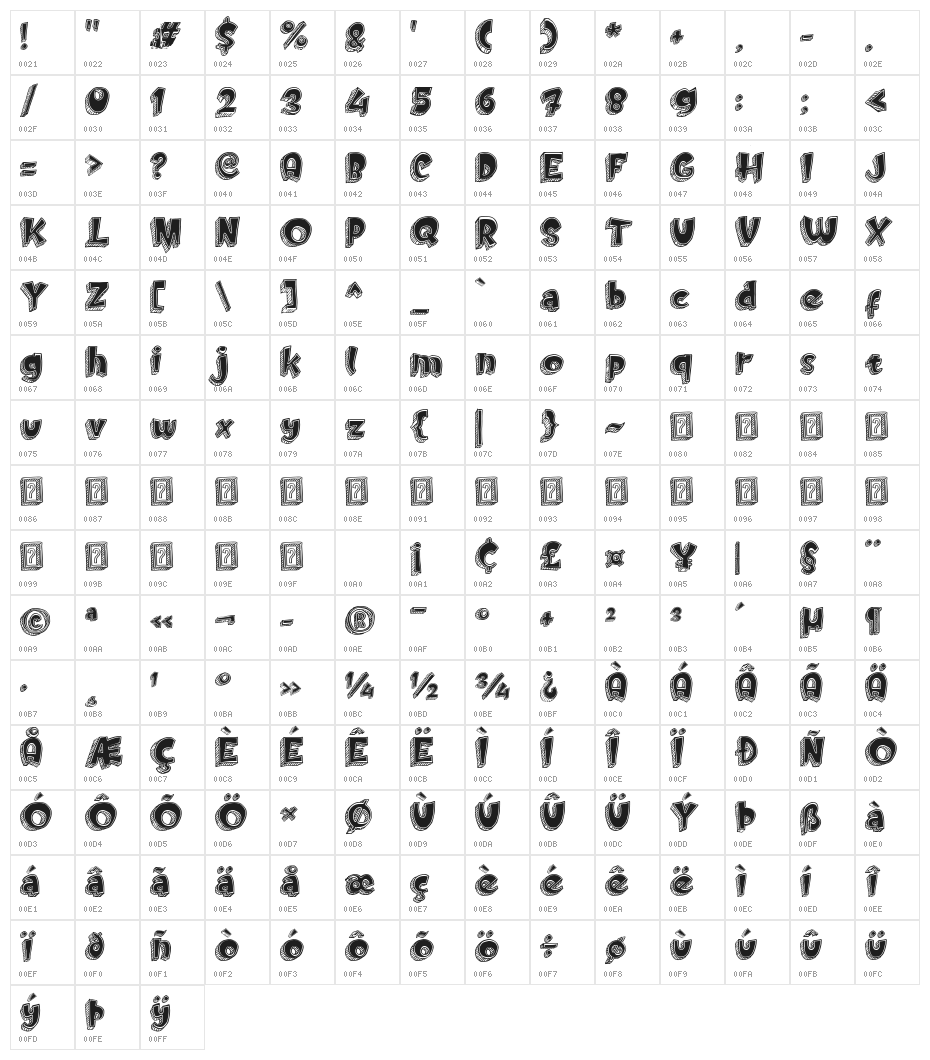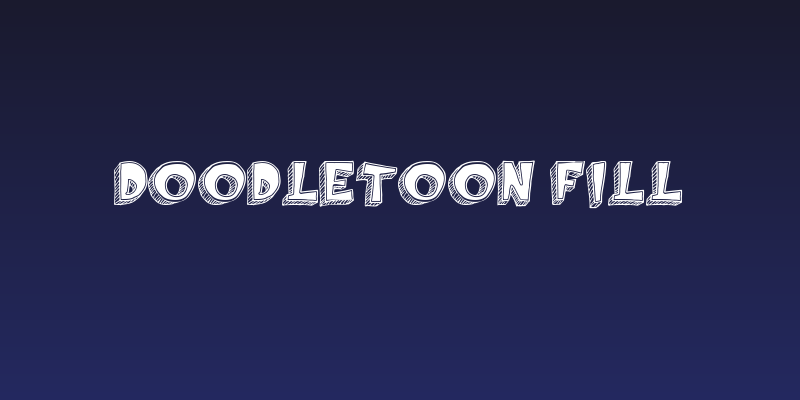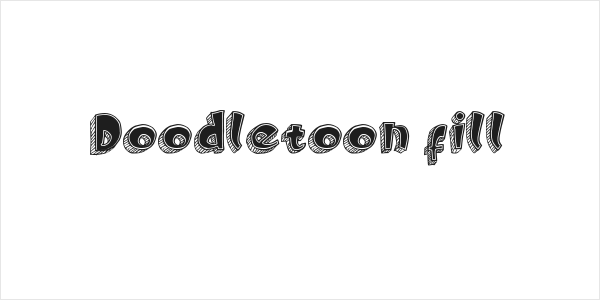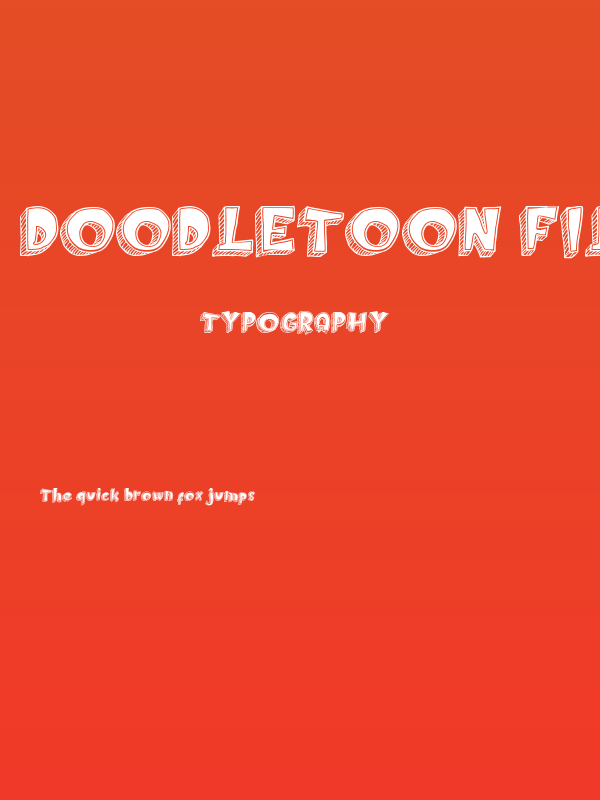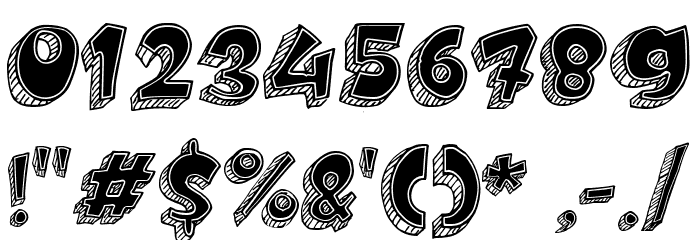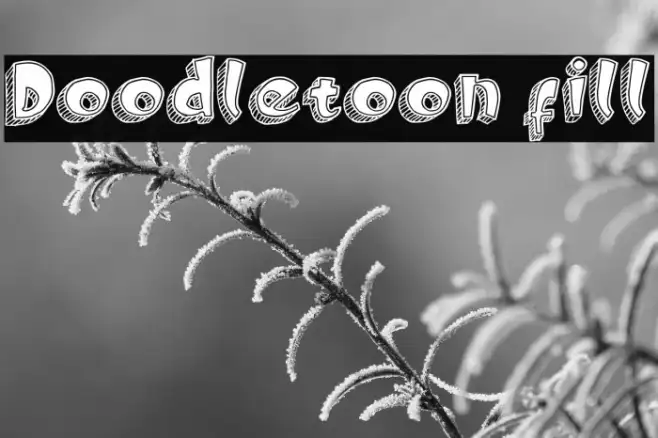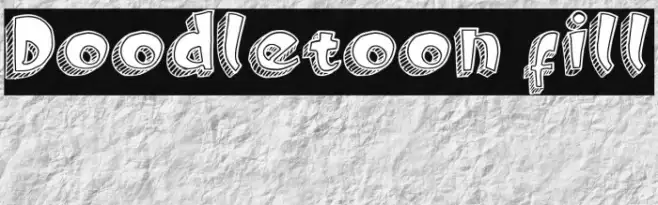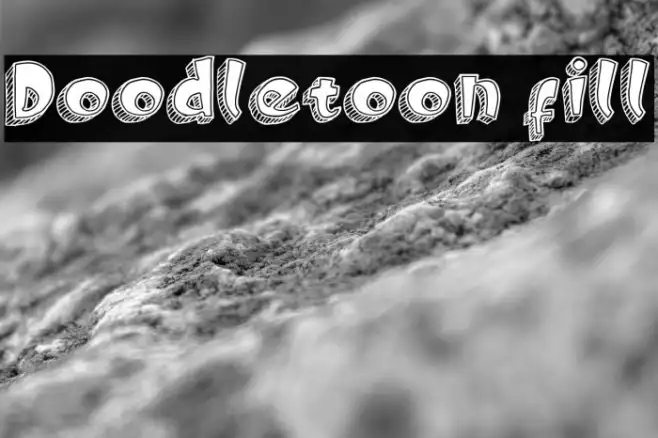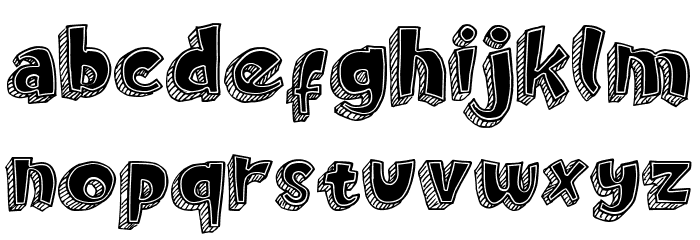
Doodletoon fill Font
Doodletoon fill Description
This playful and bold font features a hand-drawn, doodle-like style with a filled interior and sketchy outlines. Each character is uniquely crafted with a three-dimensional effect, giving it a lively and dynamic appearance. The font's whimsical nature is emphasized by its irregular lines and shading, creating a sense of movement and fun. It's perfect for projects that require a touch of creativity and informality, making it ideal for children's books, comic strips, or playful branding. The characters are well-spaced, ensuring readability while maintaining their quirky charm.
| Overall Style | Playful, Creative, Whimsical |
| Proposed Projects | Ideal for children's books, comic strips, playful branding, and creative posters. |